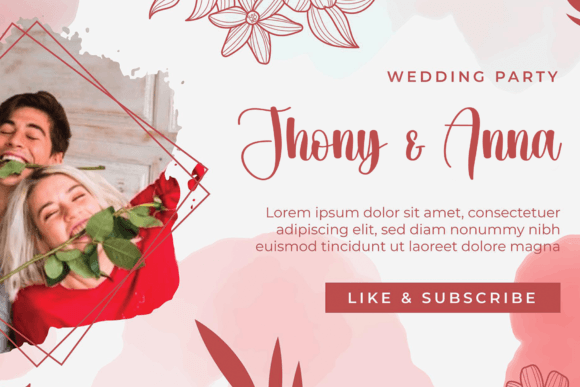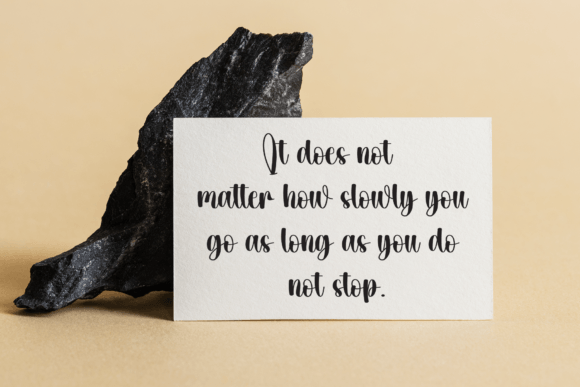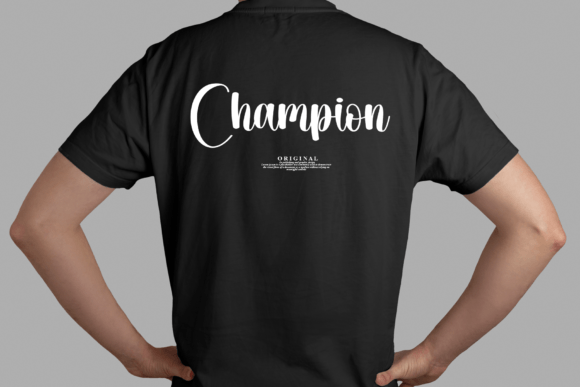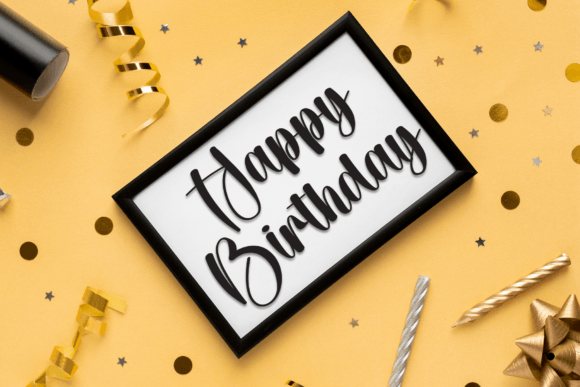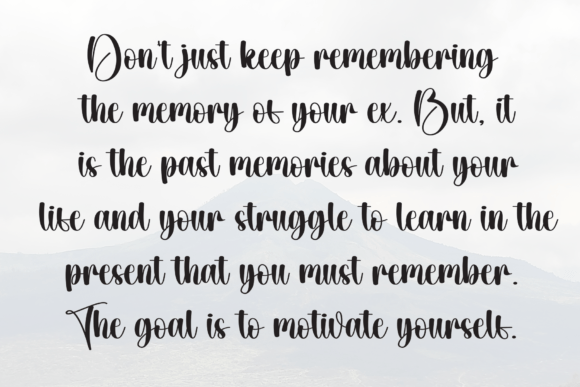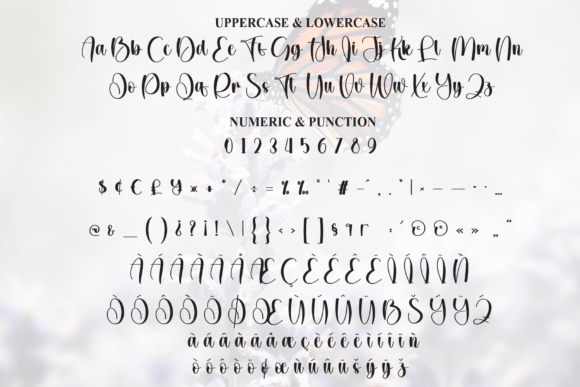
Introducing Christmas Butterfly Font: Elevate Your Designs with Elegance and Charm
Are you looking for a font that adds a touch of sophistication and whimsy to your designs? Look no further than the Christmas Butterfly Font, a stylish handwritten script font that exudes elegance and charm with its flowing, graceful curves. Perfect for invitations, logos, and branding, this beautiful font is sure to bring a personal and sophisticated touch to any design.
The Characteristics of Christmas Butterfly Font
Christmas Butterfly Font is a carefully crafted handwritten script font that boasts a range of characteristics that make it perfect for designers and crafters. Some of its key features include:
- Flowing, graceful curves: The font’s smooth, flowing curves give it a sense of elegance and sophistication, making it perfect for designs that require a touch of refinement.
- Delicate strokes: The font’s delicate strokes bring warmth and creativity to your projects, adding a personal touch that sets them apart.
- Handwritten script style: The font’s handwritten script style gives it a unique, personal feel that’s perfect for designs that require a touch of whimsy and charm.
Uses for Christmas Butterfly Font
Christmas Butterfly Font is a versatile font that can be used in a wide range of design applications. Some of the most popular uses for this font include:
- Invitations: Whether you’re designing wedding invitations, birthday invitations, or holiday party invitations, Christmas Butterfly Font is the perfect choice.
- Logos: The font’s elegant, sophisticated style makes it perfect for logos and branding, adding a touch of refinement and sophistication to any business.
- Branding: Use Christmas Butterfly Font to create a cohesive brand identity that sets your business apart from the competition.
- Stationery: Add a touch of elegance and sophistication to your stationery with Christmas Butterfly Font, perfect for creating custom letterheads, notecards, and more.
Why Choose Christmas Butterfly Font?
With so many fonts to choose from, why should you choose Christmas Butterfly Font? Here are just a few reasons why this font stands out:
- Unique and eye-catching: The font’s unique, handwritten script style makes it stand out from more traditional fonts, adding a touch of whimsy and charm to your designs.
- Elegant and sophisticated: The font’s flowing, graceful curves give it a sense of elegance and sophistication, making it perfect for designs that require a touch of refinement.
- Versatile: Christmas Butterfly Font can be used in a wide range of design applications, from invitations and logos to branding and stationery.
Tips for Using Christmas Butterfly Font
To get the most out of Christmas Butterfly Font, here are a few tips to keep in mind:
- Use it sparingly: While Christmas Butterfly Font is beautiful, it can be overwhelming if used too much. Use it sparingly to add a touch of elegance and sophistication to your designs.
- Pair it with other fonts: Experiment with pairing Christmas Butterfly Font with other fonts to create a unique and eye-catching design.
- Experiment with colors: The font’s delicate strokes look beautiful in a range of colors, from bold and bright to soft and pastel.
Christmas Butterfly Font is a beautiful, stylish handwritten script font that adds a touch of elegance and charm to any design. With its flowing, graceful curves and delicate strokes, it’s perfect for invitations, logos, branding, and more. Whether you’re a designer or crafter, this font is sure to become a favorite in your collection.